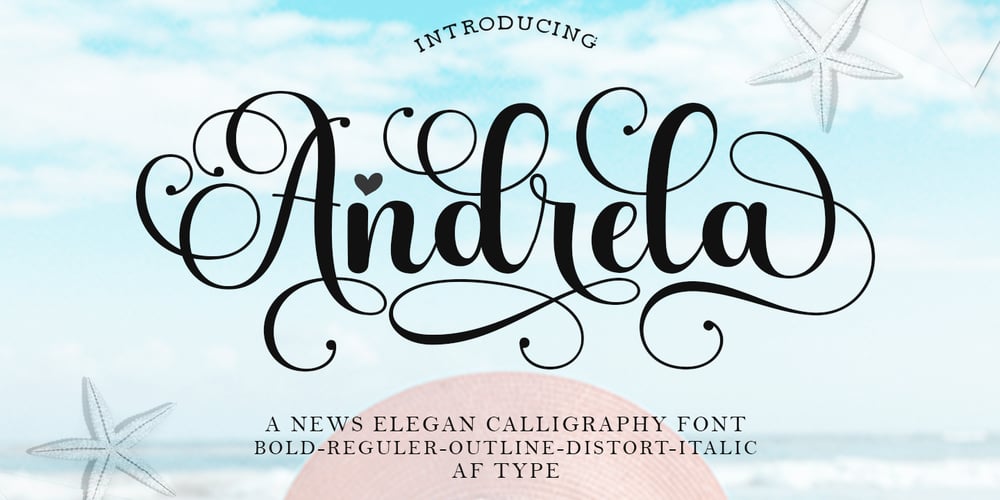
Andrela Font Family was designed by Al Qausar Firdaus and published by AF Type. Andrela contains 5 styles and family package options. Meet the cool new calligraphy font – Andrela. This beautiful script is for those who want elegance and style for their designs and is perfect for wedding invitations, save the date cards, feminine branding, and other purposes. This font is modern, simple, but still authentic.Andrela includes a complete set of Basic Uppercase and Lowercase Characters, Numbers, and Punctuation. The font also includes binders and many stylistic alternates to perfectly recreate natural calligraphy (check the preview to see them all).